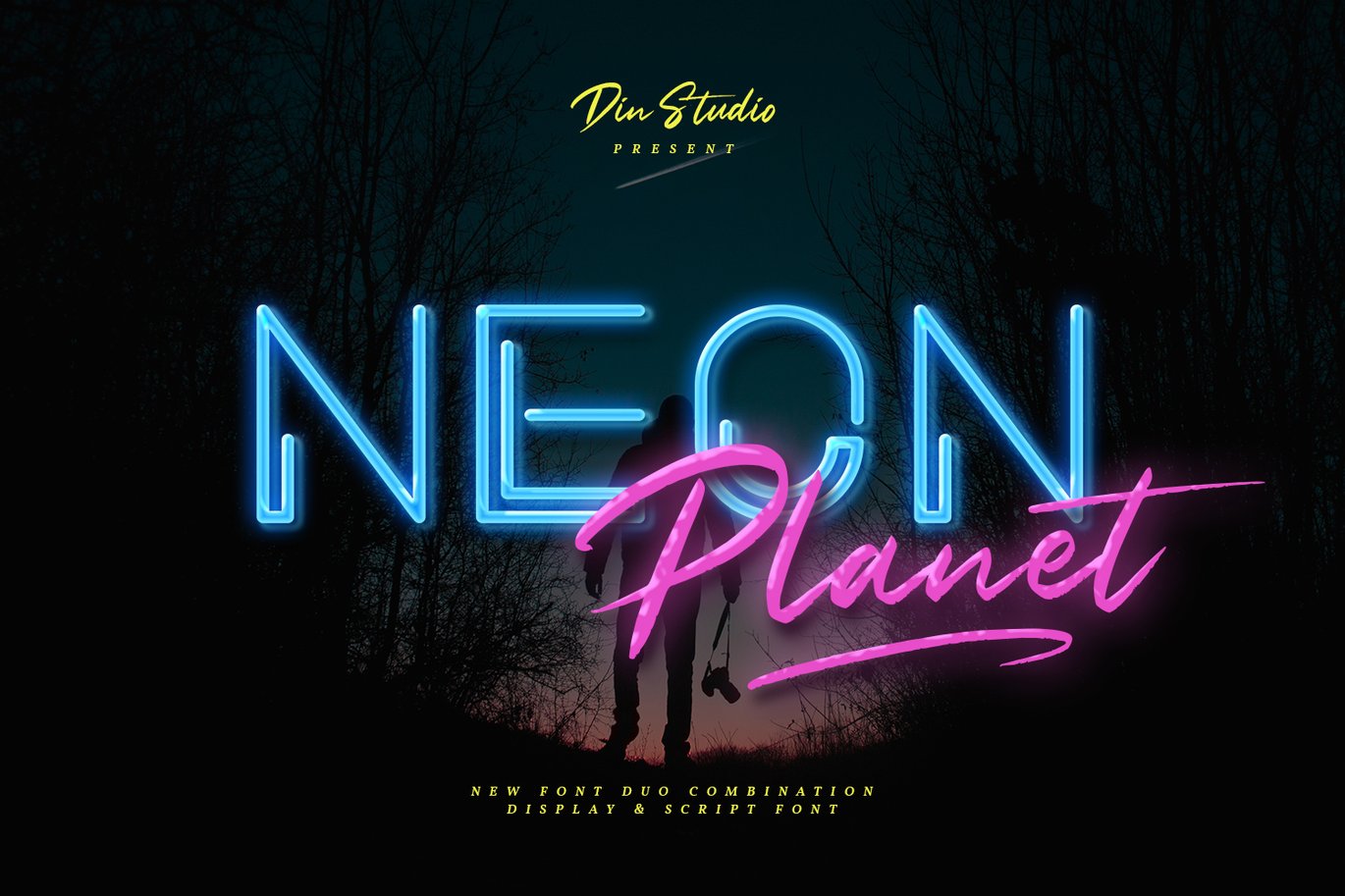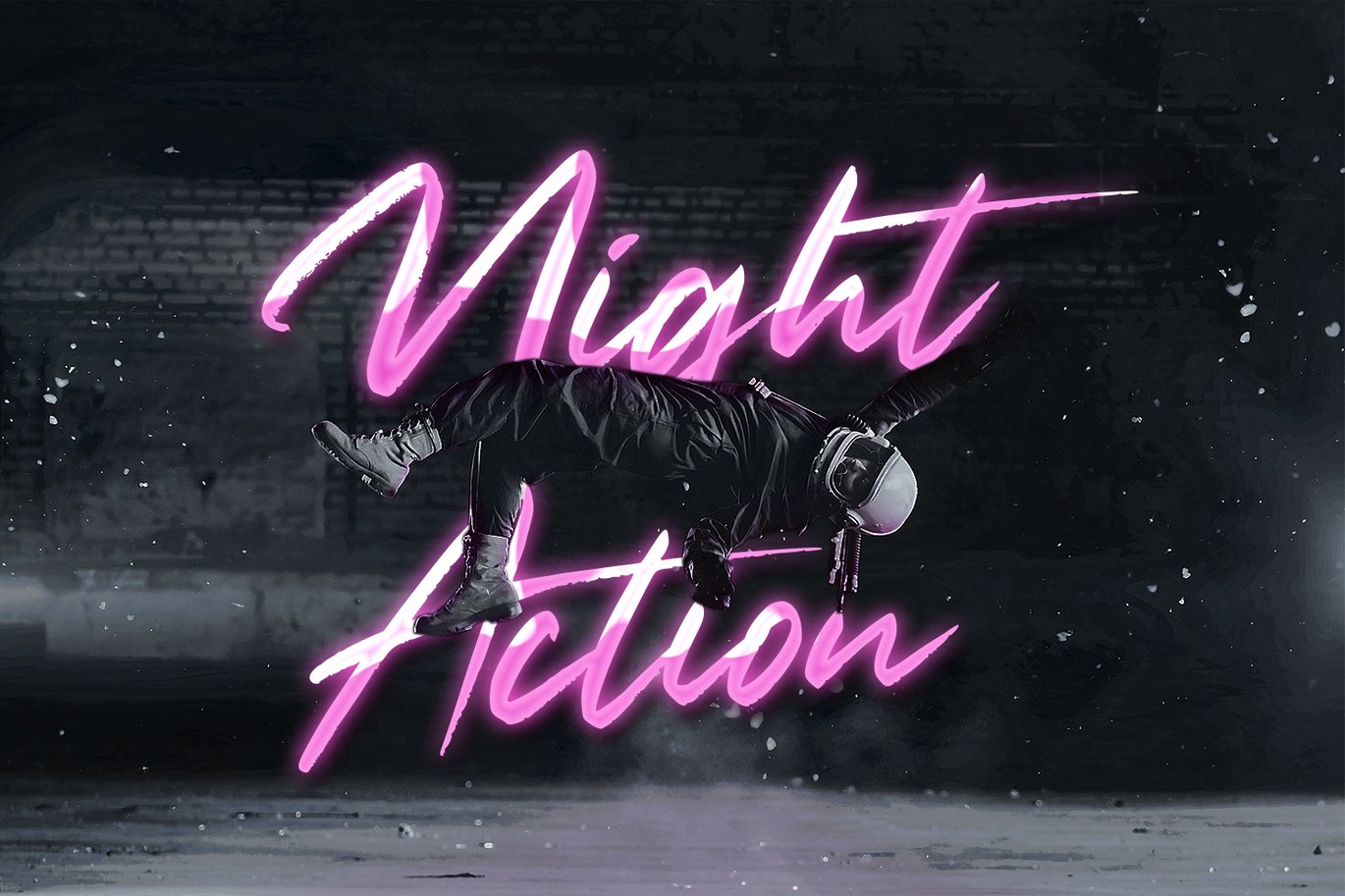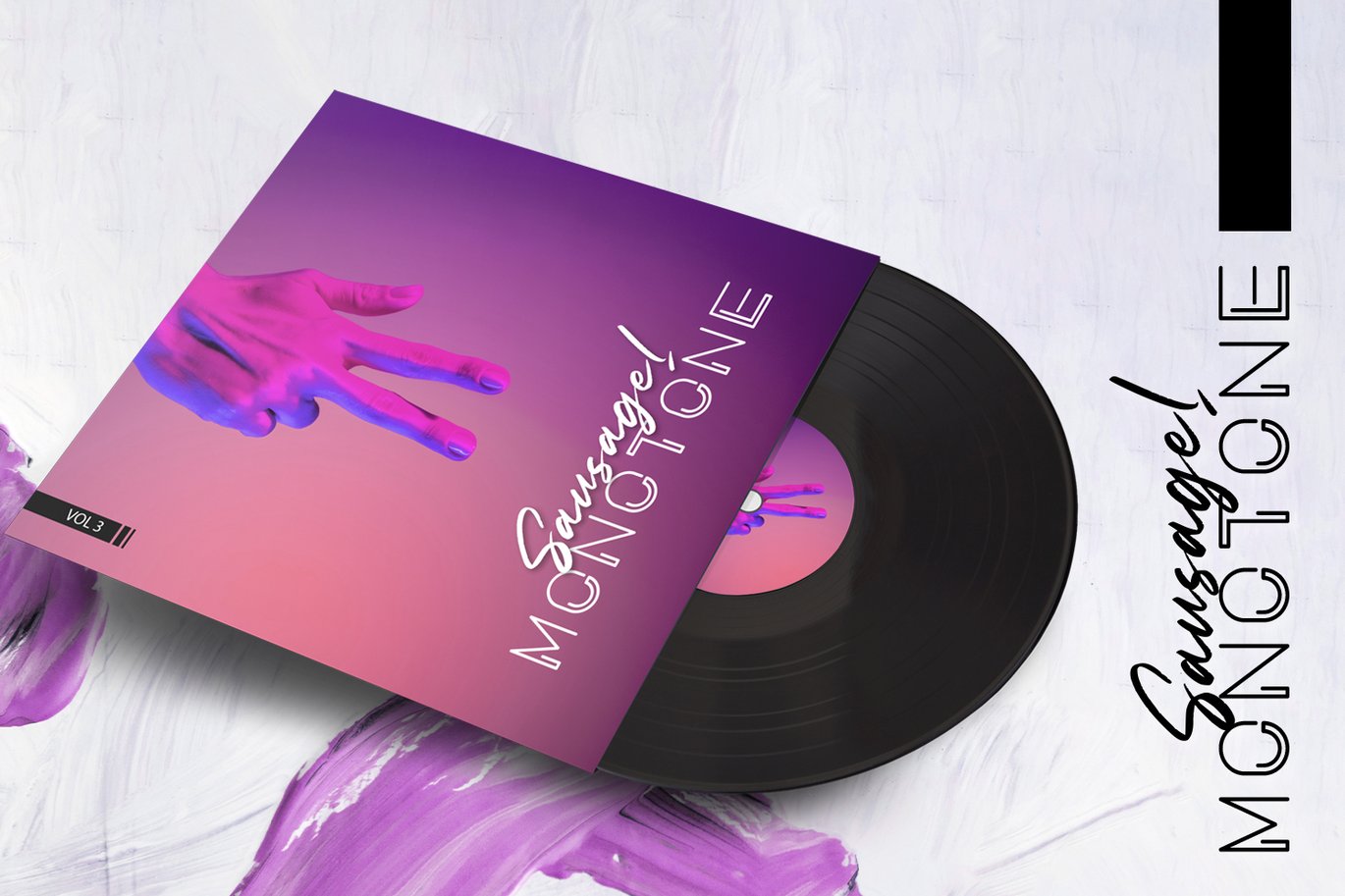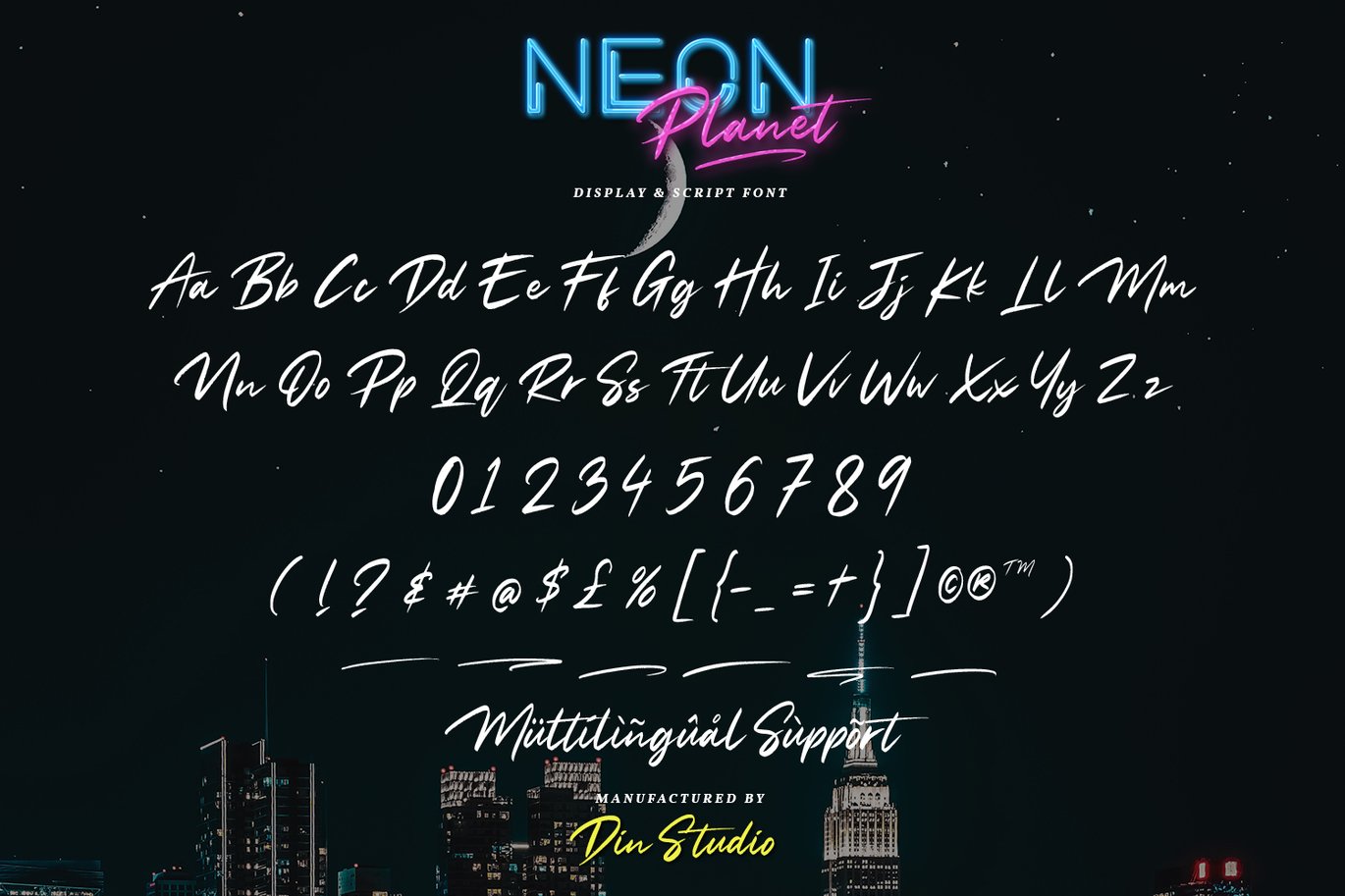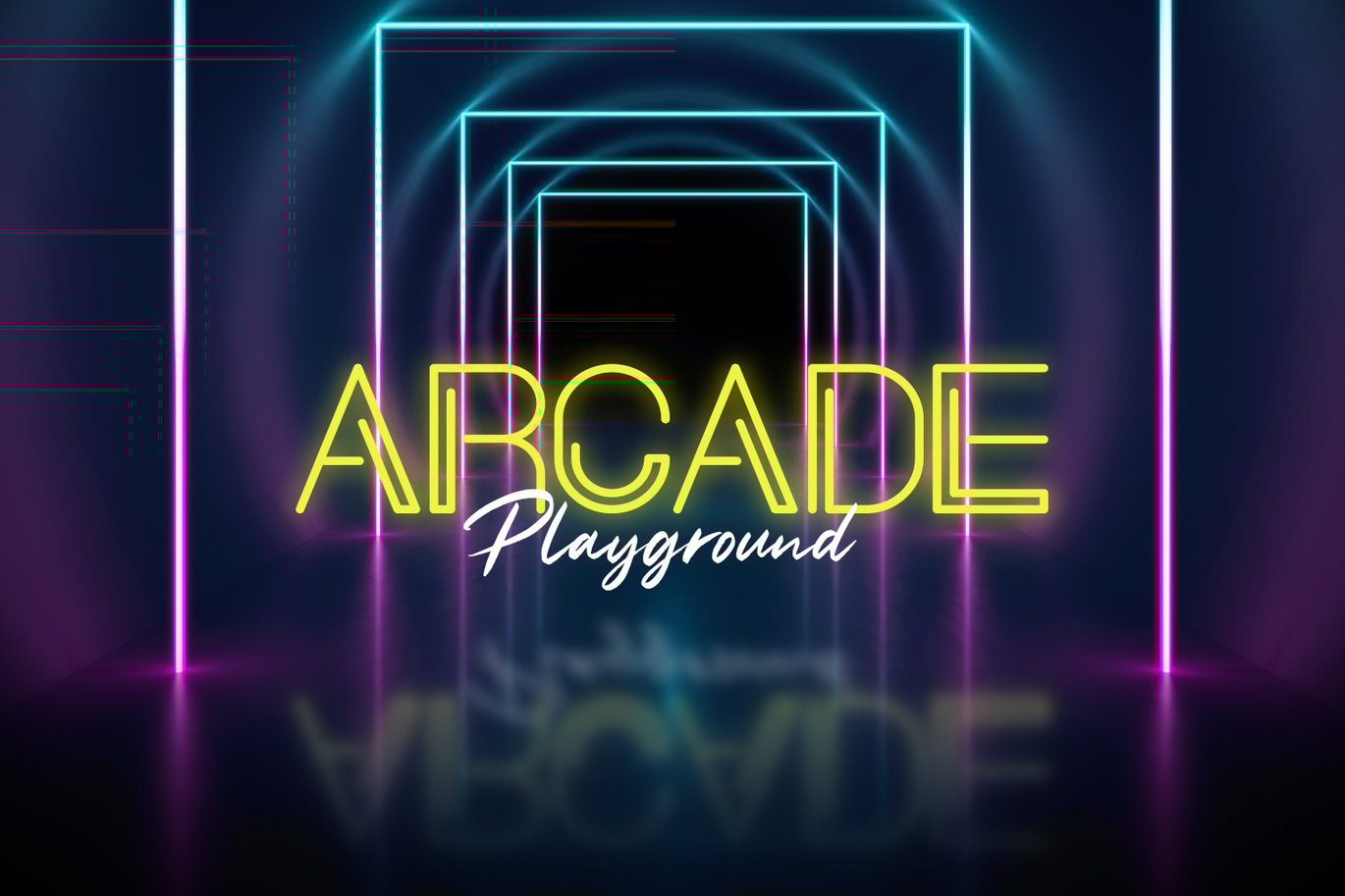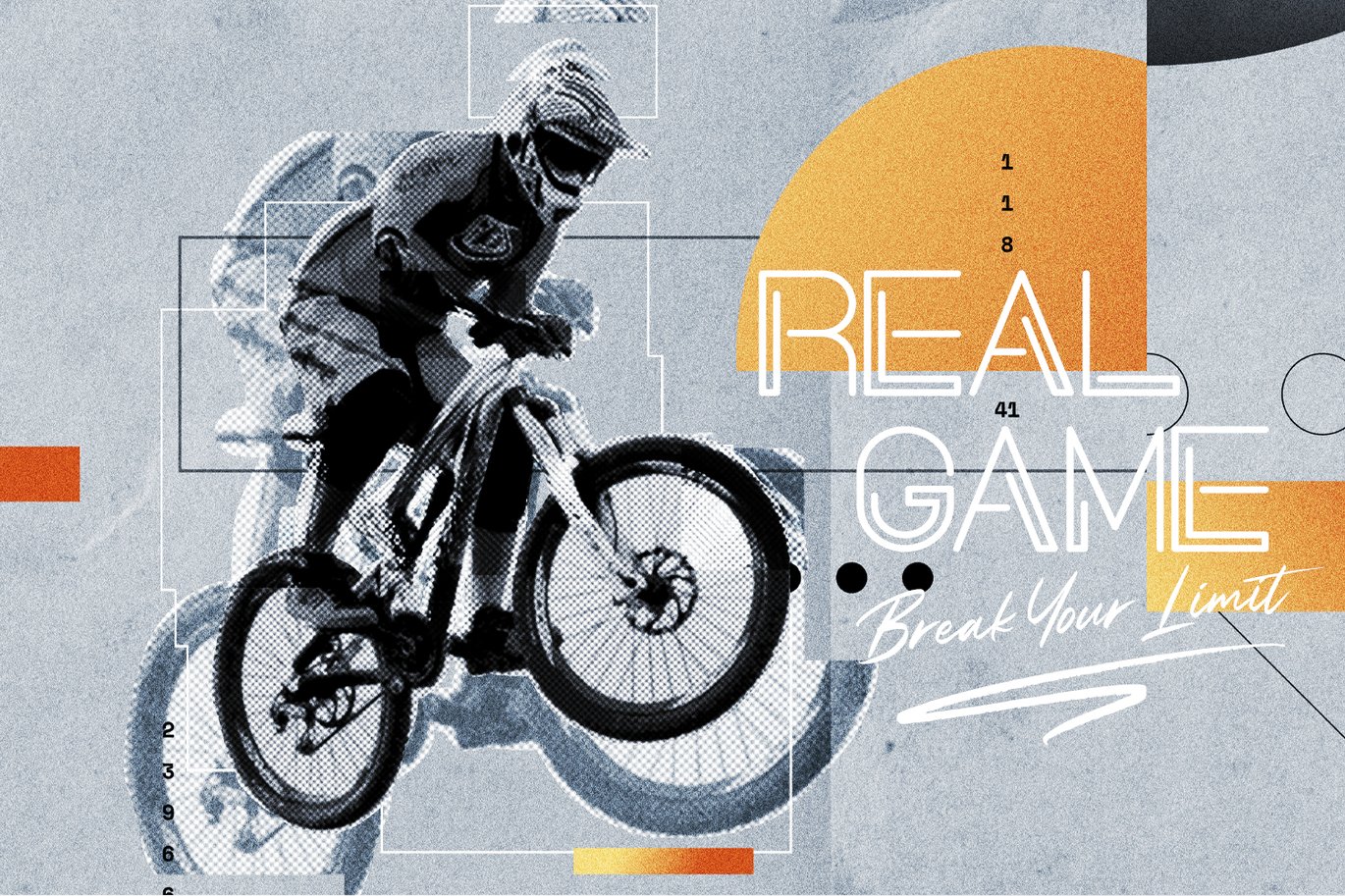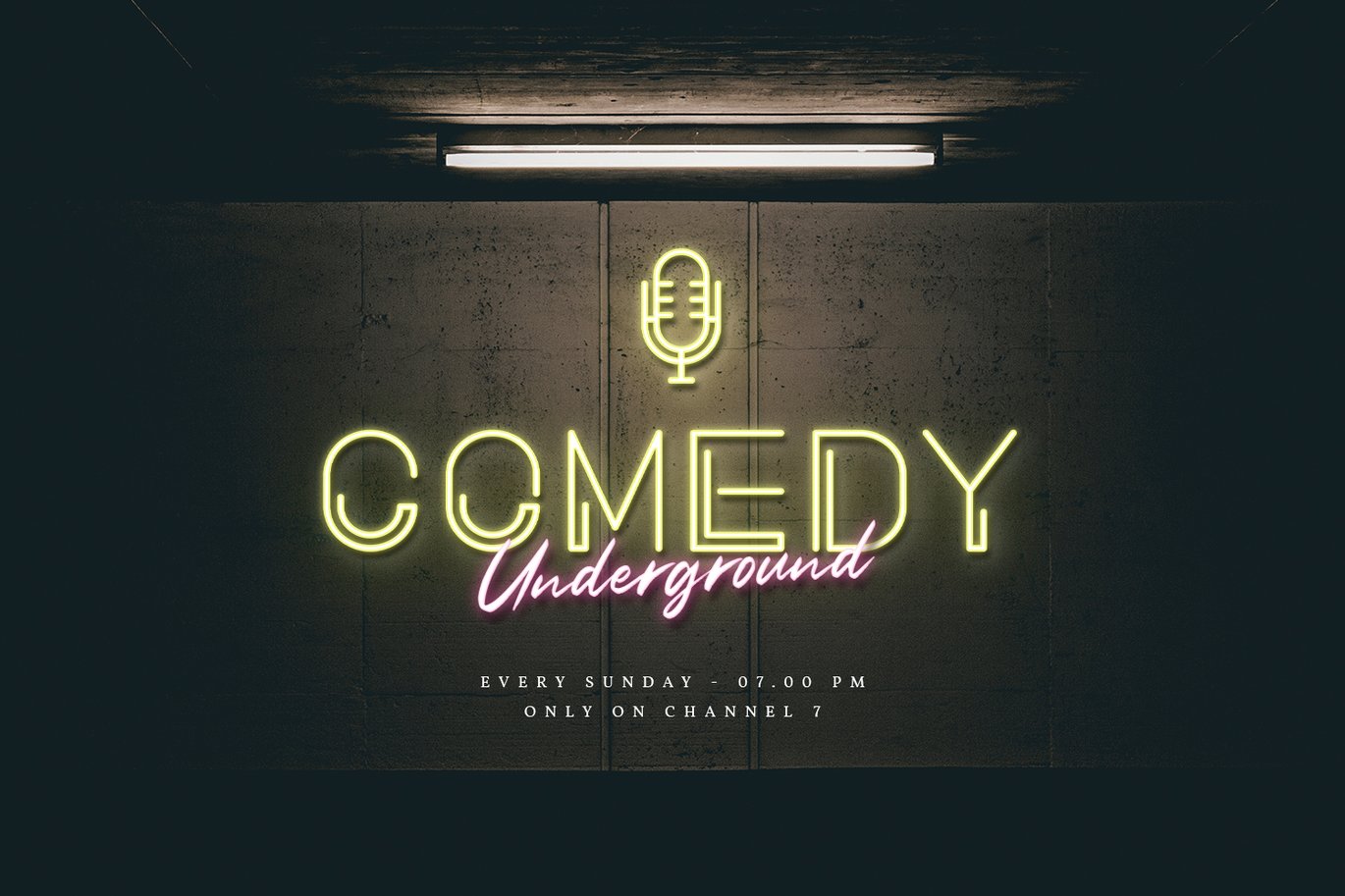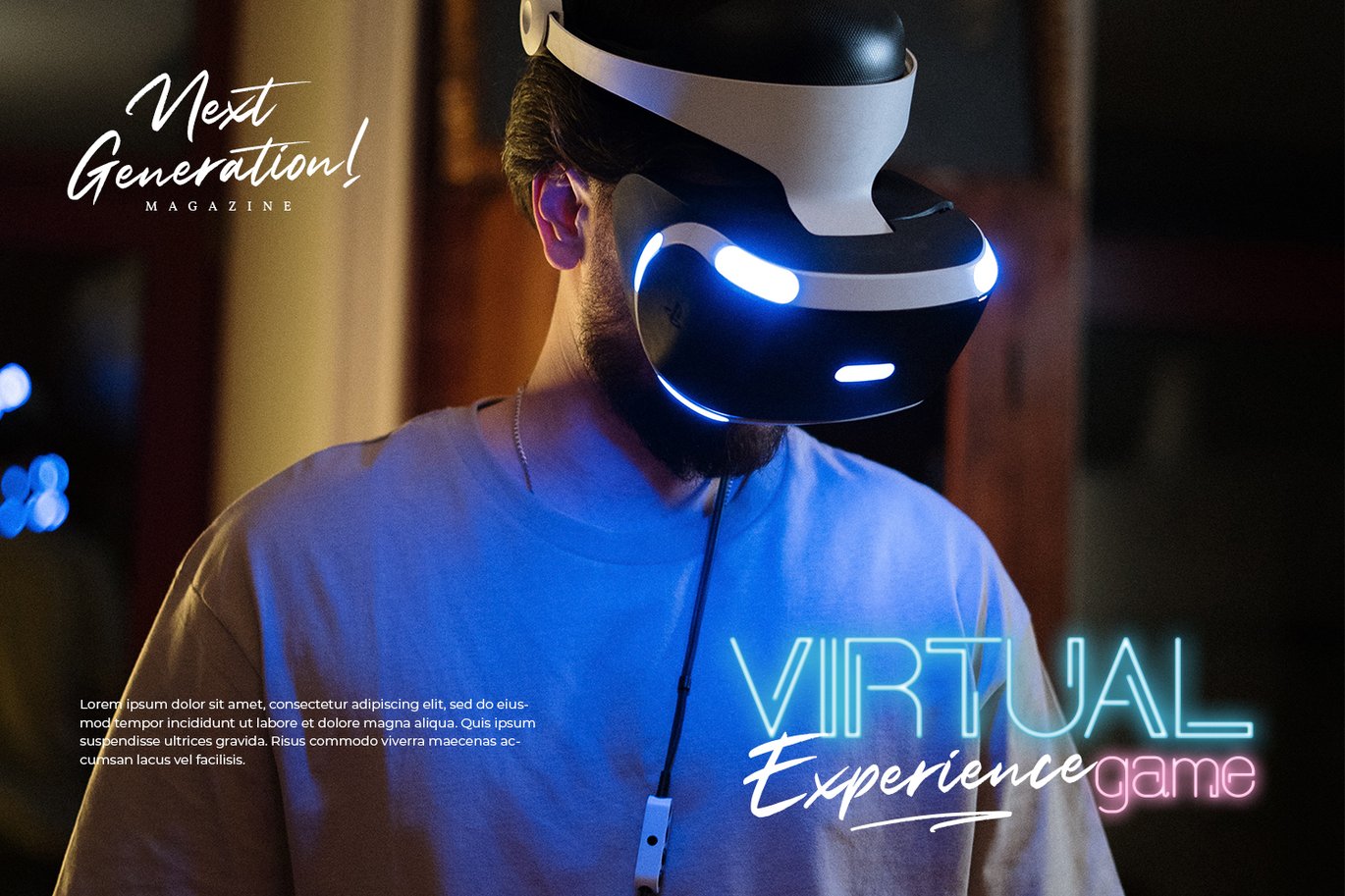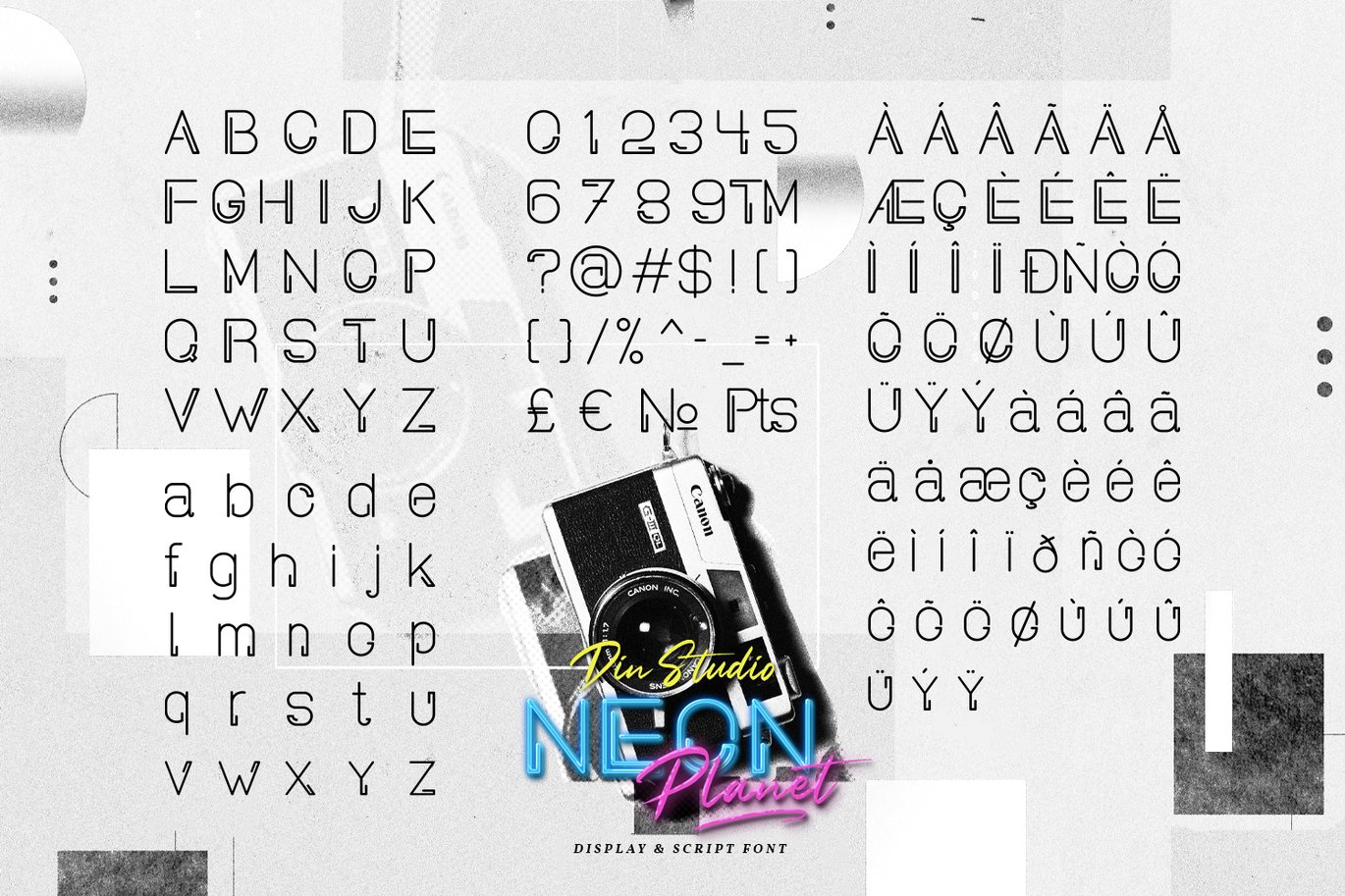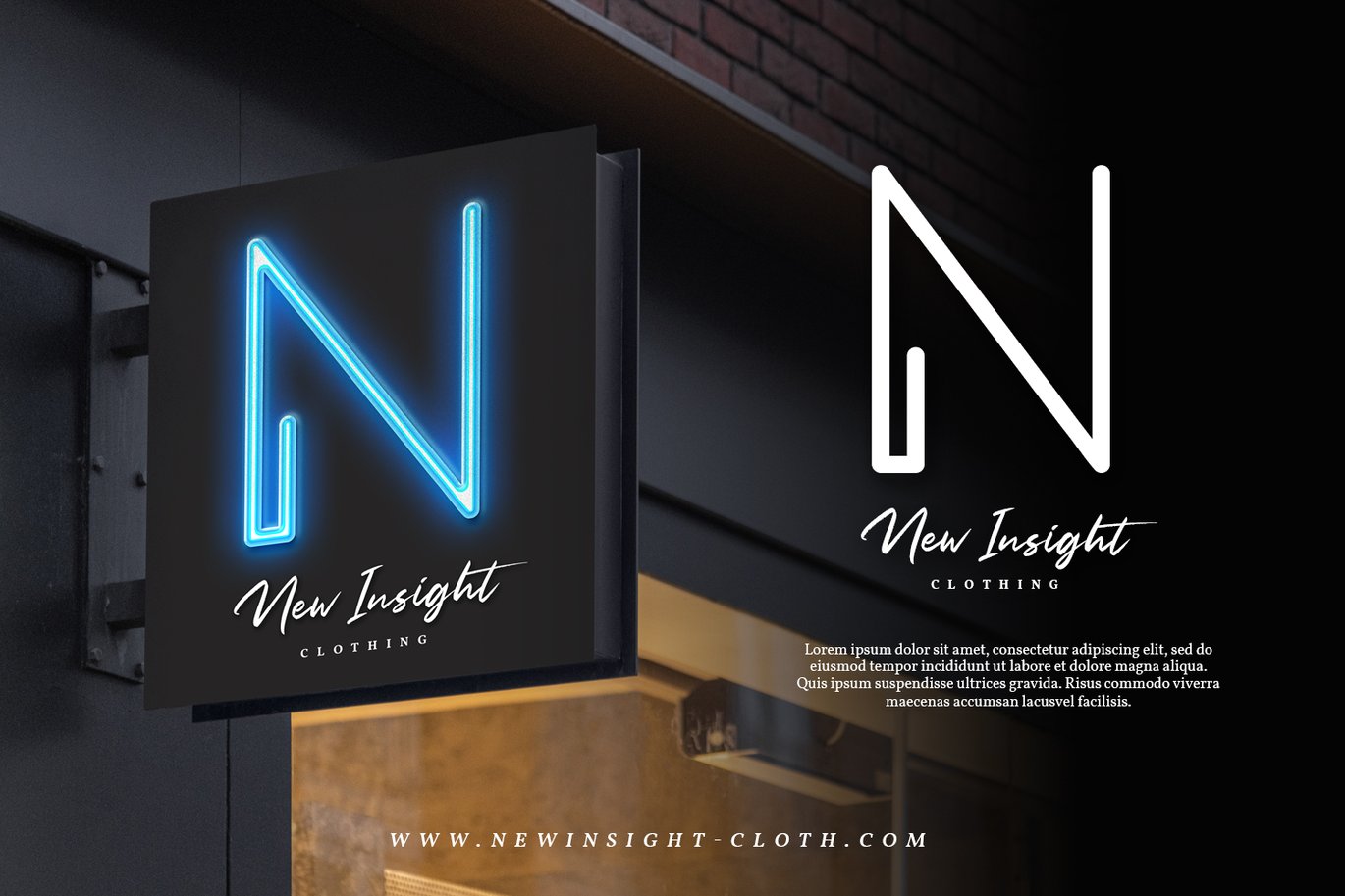
Neon Planet – Display Font Duo
The Neon planet is a Modern and futuristic font duo. Combined with neon shape design and brush textured handwritten will make your design project more powerful. the font is suitable for any project that needs Retro, Modern, and Casual Vibes. Enjoy the Font!
- Accents (Multilingual characters)